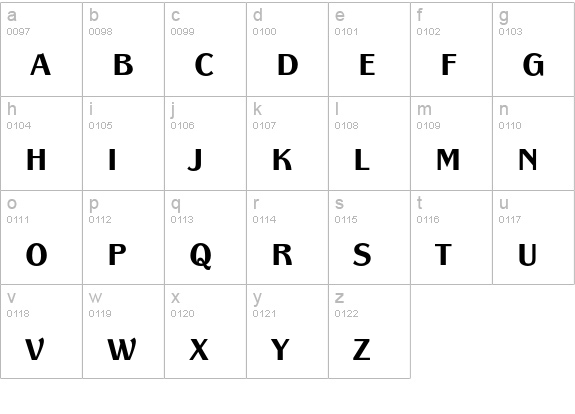
PanacheSCEF-Bold Font Details
PanacheSCEF-Bold is a strong, high-contrast variant in the PanacheSCEF typeface family \xE2\x80\x94 well suited to headlines, attention-grabbing titles, and strong calls-to-action.
PanacheSCEF-Bold font is a striking and eye-catching typeface that exudes confidence and elegance. Its bold and robust design captures attention and makes a powerful statement in any project. The strong and distinct letterforms provide a sense of precision and professionalism, making it perfect for headlines, logos, and branding materials. This font showcases a harmonious balance between modernity and classicism. With its clean lines and subtle curves, PanacheSCEF-Bold font adds a touch of sophistication to any design. Whether used in print or digital media, it brings a sense of authority and refinement that instantly elevates the overall aesthetics. One of the most remarkable aspects of PanacheSCEF-Bold font is that it is freely available to download at FontsMarket.com. This means that designers, creatives, and enthusiasts can have access to this outstanding typeface without any cost. The availability of this font for free allows for endless creative possibilities, as it can be utilized in a wide range of projects without any constraints. So, if you're looking for a font that combines boldness, elegance, and the freedom to use it without any limitations, PanacheSCEF-Bold font is the perfect choice. Download it now from FontsMarket.com and unleash your creativity with this exceptional typeface.